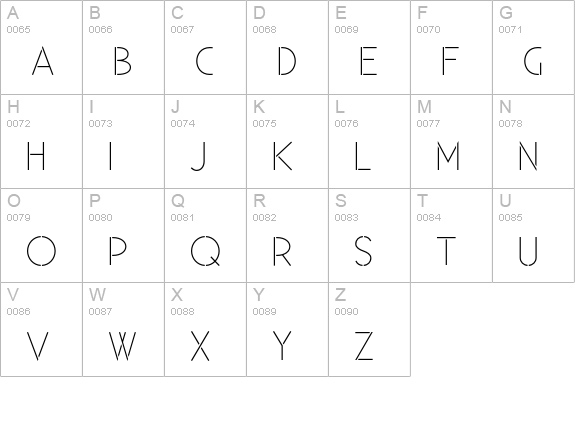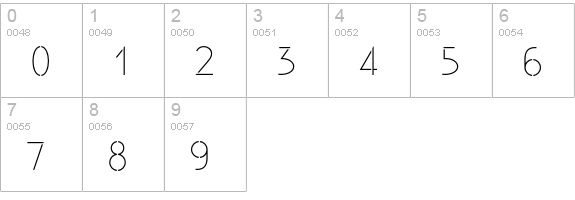
Existence Stencil Light Font Details
Existence Stencil Light is a refined, elegant variant in the Existence typeface family \xE2\x80\x94 well suited to elegant body text, refined sub-headings, and luxury branding.
Existence Stencil Light font is a modern and unique typeface that combines sleek, clean lines with a stencil design for a contemporary look. This font is perfect for making a bold statement in your designs, whether it be for branding, posters, or digital applications. The sharp edges and geometric shapes of this font give it a cutting-edge aesthetic that is sure to catch the eye. What sets Existence Stencil Light font apart is not only its striking appearance but also the fact that it is available for free download at FontsMarket.com. This means that you can easily access and use this font in your projects without any cost, making it a valuable addition to your design toolkit. Whether you are a professional designer or a hobbyist, this font offers endless possibilities for creative expression. Embrace the sleek sophistication of Existence Stencil Light font and elevate your designs to new heights.